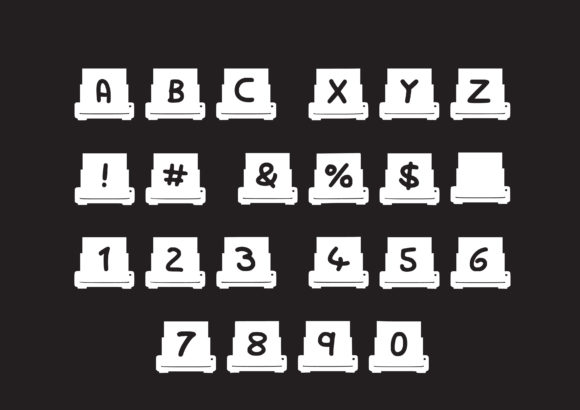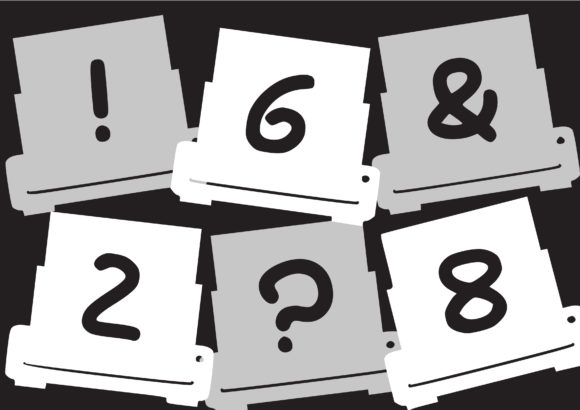
Introduction to Play Printer Font Font
Fonts play a crucial role in design, and the Play Printer Font font is a typeface that brings both character and versatility to any project. Whether you’re working on a branding project, a website, or a print design, the Play Printer Font font offers a unique style that can elevate your work.
Play Printer an incredibly cool and interestingly designed decorative font.
Whether youβre using it for crafting, digital designing, presentations or greeting cards making, itβs perfect .
Key Features of Play Printer Font Font
Why Choose Play Printer Font Font?
The Play Printer Font font is more than just a typeface β it’s a design tool that helps you communicate your message with style and clarity. Its unique character set and versatile design make it suitable for a wide range of applications, from elegant invitations to bold headlines.
With its carefully crafted letterforms and balanced proportions, the Play Printer Font font ensures readability and visual appeal across all mediums.
What makes Play Printer Font font special?
The Play Printer Font font stands out with its unique design, exceptional readability, and versatility across various design applications.